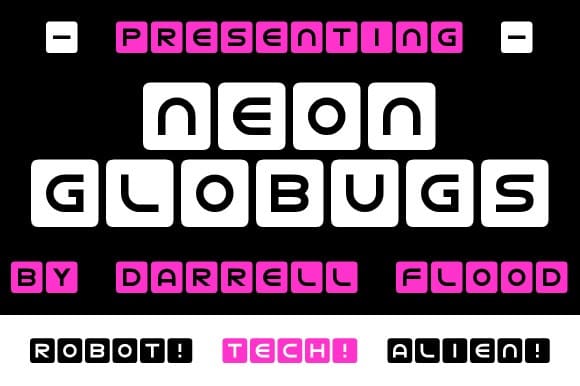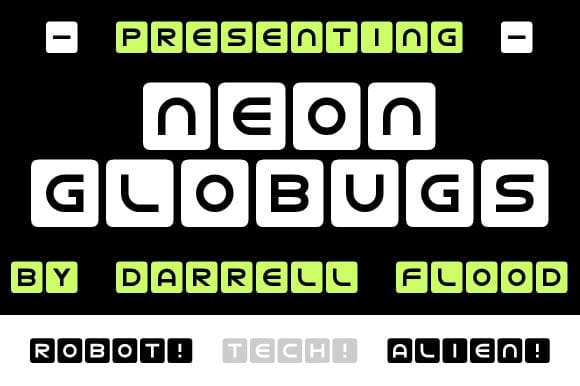
Neon Globugs Font
Neon Globugs Font is a geometric, curvy loopy font in a curved square tile based style. Perfect for quirky parties, sci-fi themes and general high tech use!